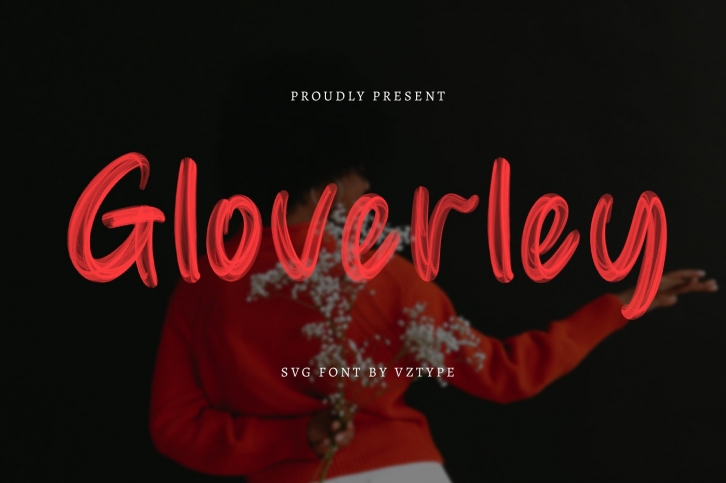
Gloverley SVG is a gorgeous font that was realeased on June 15, 2020. The font can be used in many style contexts and design environments. Perfect for invitations, magazines, websites, logos, and more! It was designed by Vz Type and the file size is 9.80 MB. Thanks for checking out this font!